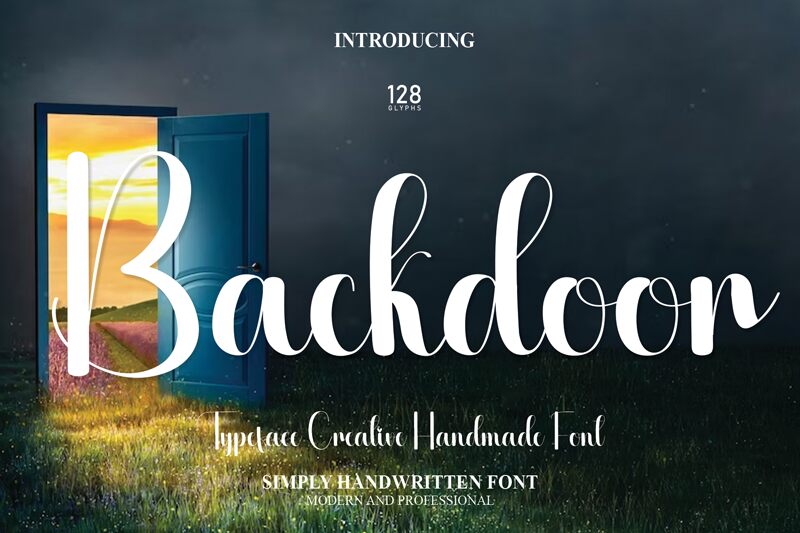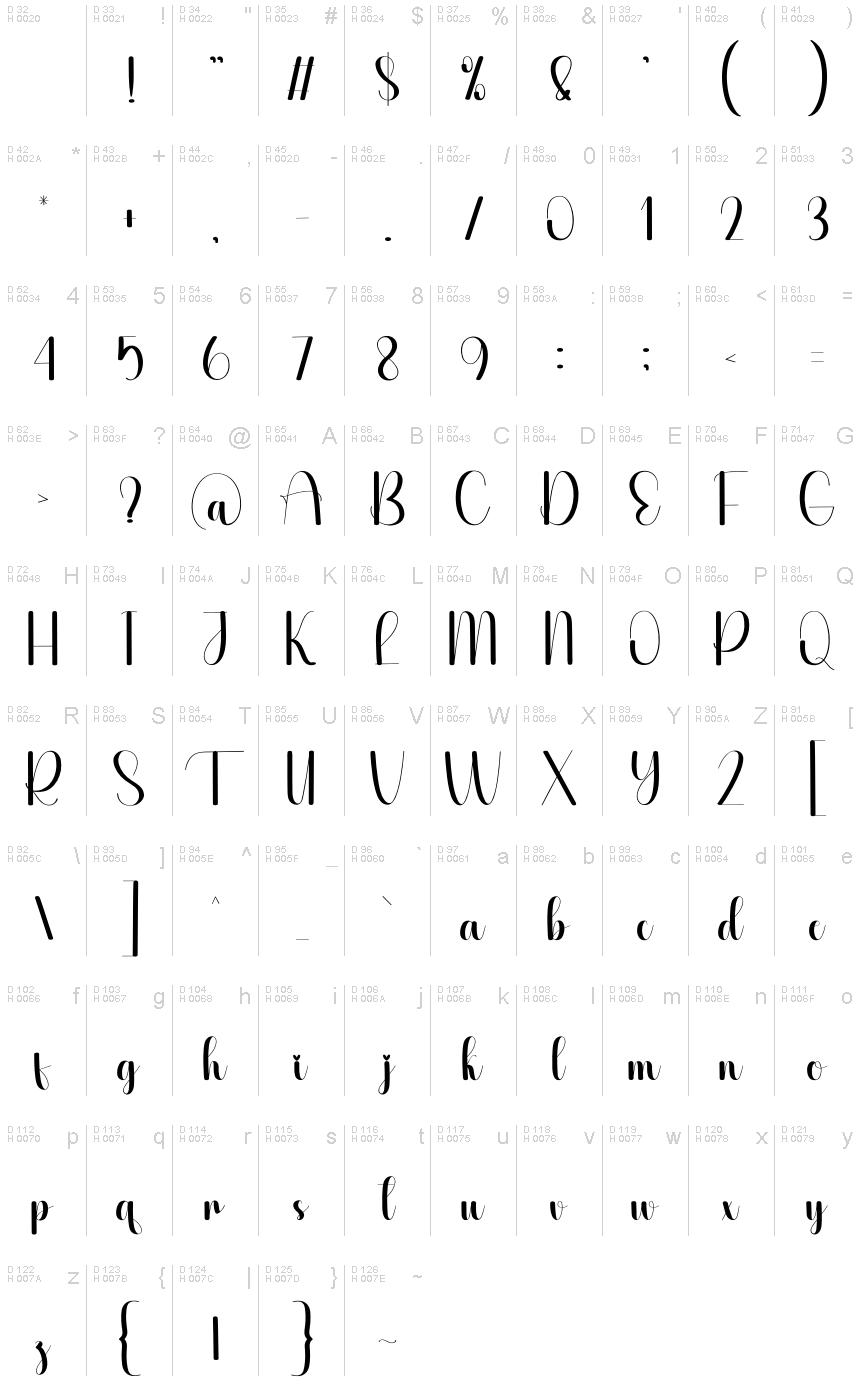
Backdoor
Backdoor font, designed by Scratchones, is a stunning embodiment of calligraphic elegance. Its flowing curves and artistic flourishes invite an intimate connection, radiating warmth and creativity. The gentle swells of the letters create a sense of movement, making it an ideal choice for designs that aspire to captivate and inspire.
This font shines in settings such as wedding invitations, luxury branding, or any project where a personal touch is desired. Its unique character allows it to stand out while retaining an air of sophistication, ensuring that messages are both memorable and visually appealing. Backdoor captures the essence of artistry in typography, perfect for anyone seeking to elevate their design with a refined yet dynamic flair.